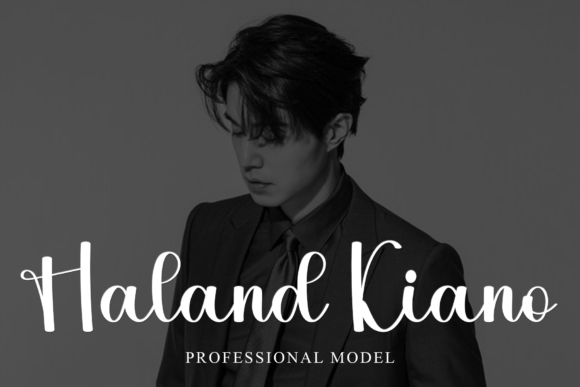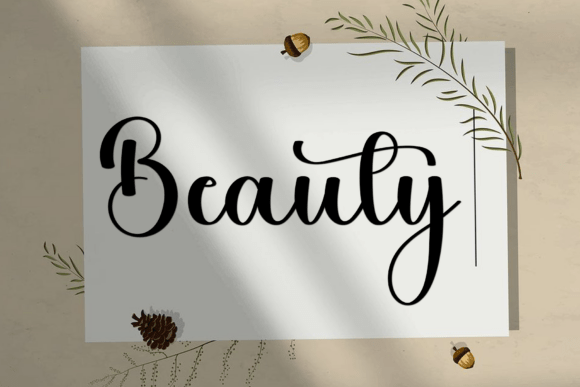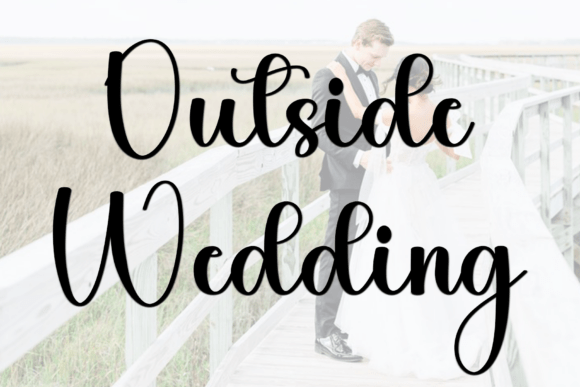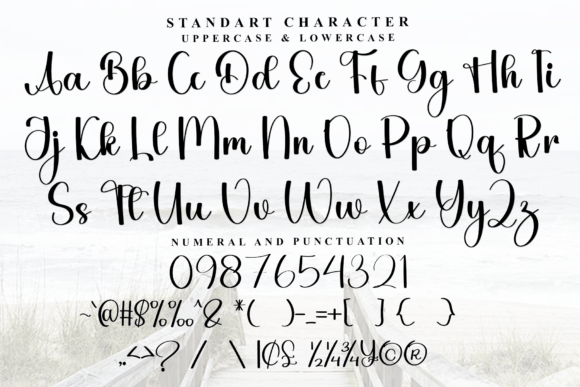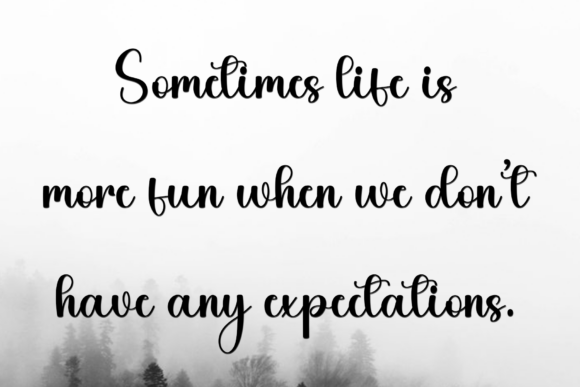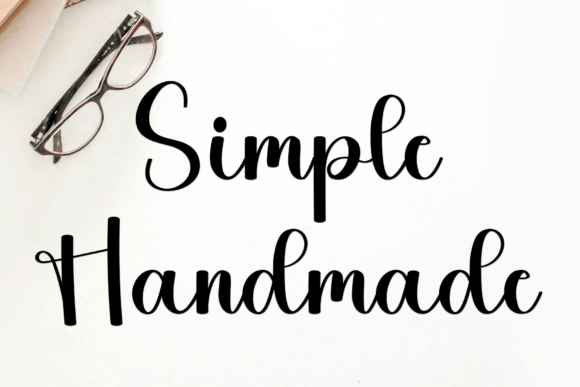
Have you ever found yourself in the middle of a design project, struggling to find the perfect font to bring your vision to life? You’ve browsed through countless options, but none seem to capture the essence of your idea. If this sounds familiar, you’re in luck! The Bride Delightful Font is here to change the game.
This beautiful and eye-catching font is designed with a soft, unique touch that will add a special character to your designs. With its distinctive strokes and various characters, it’s perfect for a wide range of projects, from crafts to digital design. Whether you’re a seasoned designer or just starting out, the Bride Delightful Font is a valuable addition to your toolkit.
Bride Delightful Font Key Features
- Font Family: Bride Delightful Font is a beautiful, elegant script font designed for wedding invitations and other special occasions.
- Unique Characteristics: The font features beautiful, flowing lines and subtle flourishes, making it perfect for adding a touch of elegance to wedding invitations, stationery, and other special occasions.
Bride Delightful Font Review
I’ve had the chance to play around with the Bride Delightful Font, and overall, I think it’s a solid choice for wedding-related designs. ✨ The font’s elegant and feminine feel makes it perfect for creating a whimsical, romantic atmosphere.
- ✨ The font’s ligatures are well-designed, making it perfect for words like “love” and “heart” that are often used in wedding designs.
- ✨ The font’s high x-height makes it easy to read, even in smaller sizes.
- ✨ The font’s decorative flourishes add a touch of sophistication to any design.
However, there are a few limitations to keep in mind: ⚠️ The font’s design can feel a bit over-the-top in some cases, so it’s essential to use it sparingly. Additionally, the font’s uppercase letters can look a bit too ornate, which may not be suitable for all designs.
Overall, I think the Bride Delightful Font is a great choice for designers looking to add a touch of romance to their wedding designs. While it may have some limitations, the font’s unique design and elegant feel make it a valuable addition to any design library.
Tips for Getting the Most Out of Bride Delightful Font
Use Bride Delightful Font for wedding-related designs, such as invitations, save-the-dates, and wedding stationery.
Combine Bride Delightful Font with other elegant fonts for a sophisticated look.
Experiment with different font sizes and styles to create a unique and eye-catching design.
Bride Delightful Font is perfect for:
Wedding invitations and save-the-dates
Wed
Great Vibes is a beautiful, elegant script font that works well for wedding invitations, quotes, and other romantic designs. It has a more refined and sophisticated look compared to Bride Delightful Font.
Comparison: While Bride Delightful Font has a playful and whimsical feel, Great Vibes Font is more polished and sophisticated. Great Vibes Font is ideal for formal or vintage-inspired designs.
Dancing Script is a classic, elegant script font that works well for wedding invitations, announcements, and other formal designs. It has a more traditional and timeless look compared to Bride Delightful Font.
Comparison: While Bride Delightful Font has a more modern and playful feel, Dancing Script Font is more traditional and elegant. Dancing Script Font is ideal for formal or classic-inspired designs.
Can I customize Bride Delightful Font to fit my specific design needs?